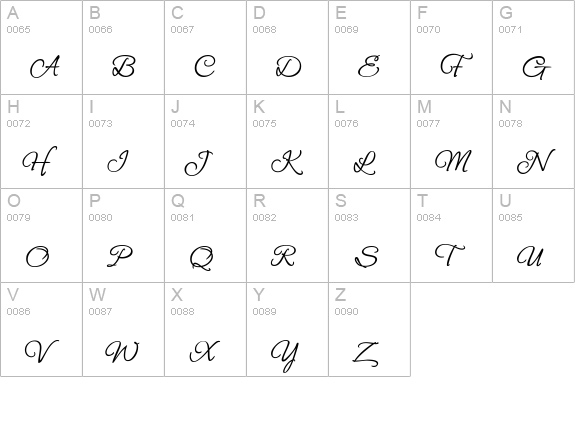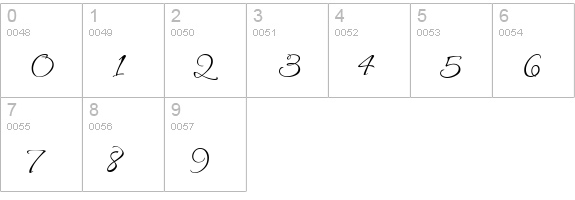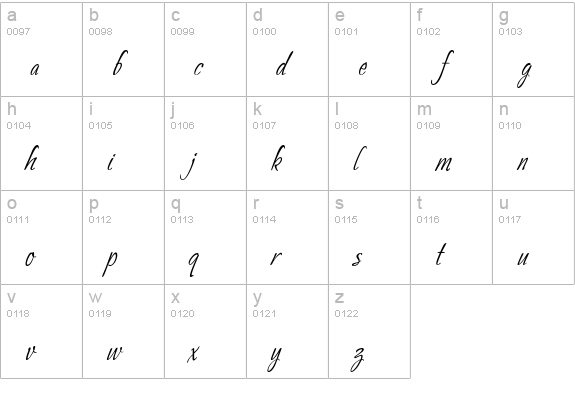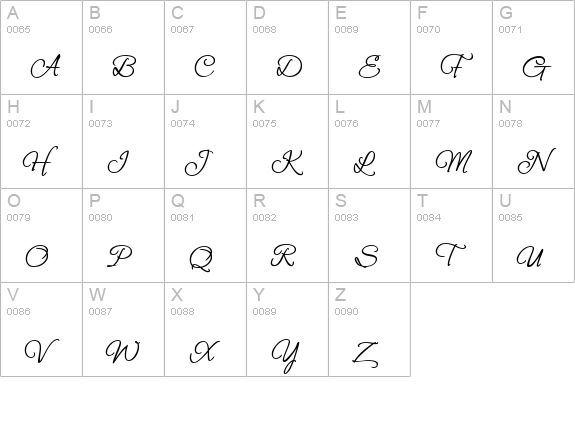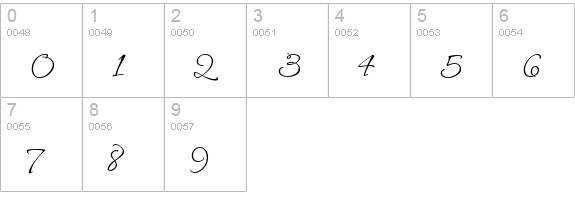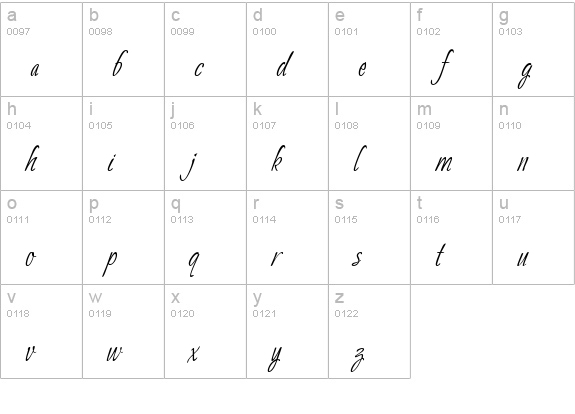
P22 Petemoss Font Details
P22 Petemoss font is a striking and versatile typeface that exudes a unique charm and personality. Its organic and hand-drawn appearance adds a touch of warmth and authenticity to any design project. This font is perfect for adding a natural and whimsical touch to logos, branding, packaging, invitations, and more. With its free-flowing lines and playful curves, P22 Petemoss font captures the essence of nature and brings a sense of calmness and tranquility to any design. Its irregular letterforms and uneven strokes give it a handcrafted feel, making it stand out from the crowd. One of the best things about P22 Petemoss font is that it is freely available to download at FontsMarket.com. This means that you can easily access and use this stunning typeface without any cost. Whether you are a professional designer or a hobbyist, this font opens up a world of creative possibilities without breaking the bank. The characters in P22 Petemoss font are carefully crafted with attention to detail, ensuring legibility and readability even at smaller sizes. Its extensive character set includes uppercase and lowercase letters, numerals, punctuation marks, and special symbols, providing you with all the tools you need to create stunning designs. In addition to its aesthetic appeal, P22 Petemoss font is also highly versatile. It pairs well with a variety of other typefaces, allowing you to create unique and dynamic combinations. Its versatility extends to different design styles, from elegant and sophisticated to playful and whimsical, making it suitable for a wide range of projects. So, if you're looking for a beautiful and free font that adds character and charm to your designs, look no further than P22 Petemoss font. Download it today from FontsMarket.com and let your creativity flourish.